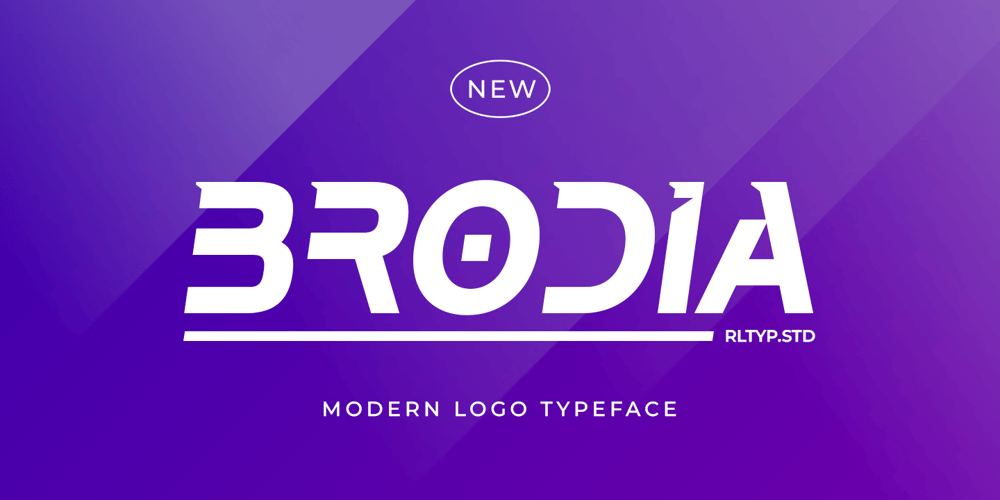
Brodia Font Family was designed by Gustian Agung Asprilla and published by Rillatype. Brodia contains 2 styles and family package options. Introducing, Brodia. Brodia is a modern logo font with different uppercase and lowercase that will make your design futuristic and modern. This font is perfect for your logo, branding, movie poster, or logotype.If you have any question please feel free to reach me at Rillatype@gmail.comThank You!